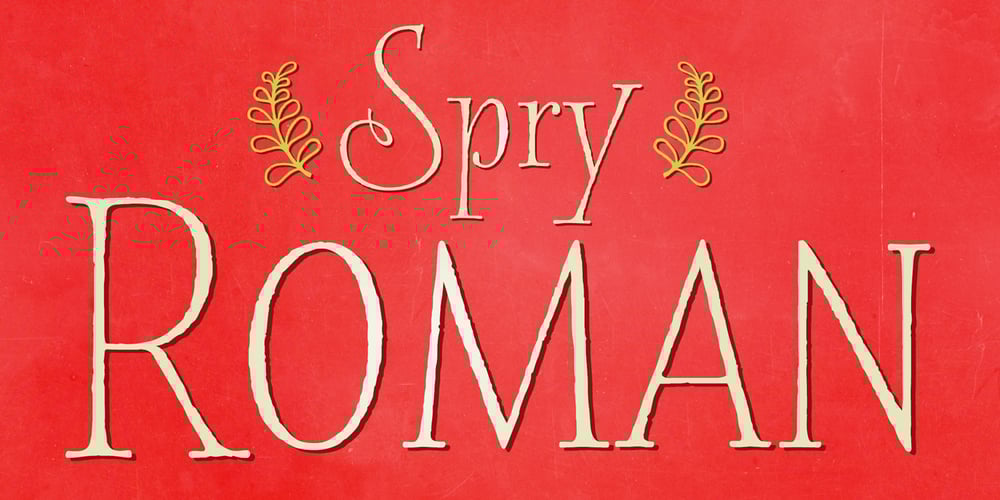
Spry Roman Font Family was designed by Stephen W. Rapp and published by Stephen Rapp. Spry Roman contains 4 styles and family package options. Handmade, expressive, lively, organic— …words typically used to describe a script font or a casual sans. Spry Roman opens up new possibilities. It’s origin is handwritten letters created using a pointed nib on slightly toothy paper. While based on a Roman form, the letters are designed to break out of the mold and dance along the baseline. Spry Roman Pro is a fully featured opentype font. Among the 964 glyphs are loads of alternate characters and swash letters; a full set of small caps; simple fractions; case sensitive punctuation; and a variety of ornaments, border elements, and flourishes. It also includes a full dose of language support for not only main characters, but also for alternates and small caps. Ligatures have been kept to a minimum to allow users the option of tracking text. **Please note that the Pro version has all the glyphs of the others combined. The smaller versions are for those who don’t have opentype savvy apps like Adobe Illustrator.